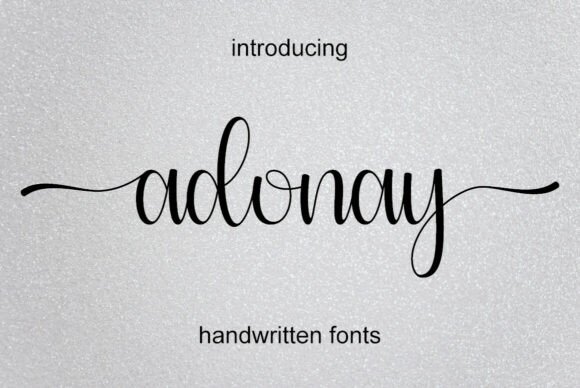
The Sweet Charm of Adonay Font: A Designer’s Delight
I’ll never forget the time I was working on a wedding invitation project, and my client asked for a font that was ” elegant, yet playful; romantic, yet modern.” I scoured the internet, tried out dozens of fonts, but nothing seemed to fit the bill. That was until I stumbled upon Adonay Font. This sweet and cursive handwritten font has been a game-changer for me, and I’m excited to share its charm with you! 😊
An Honest Review of Adonay Font
• ✨ Sweet and feminine touch: Adonay Font adds a touch of whimsy and romance to any design project.
• ✅ Versatile: It works beautifully on a variety of design ideas, from branding and logos to wedding materials and greeting cards.
• 💕 Elegant yet casual: Adonay Font strikes the perfect balance between sophistication and playfulness.
• 🎉 Easy to read: Despite its cursive nature, Adonay Font is surprisingly legible, even at smaller font sizes.
While Adonay Font is an excellent choice for many projects, there are a few things to keep in mind:
• 🤔 Limited use for body text: Due to its cursive nature, Adonay Font may not be the best choice for lengthy body text. It’s better suited for headings, titles, or short paragraphs.
• ⚠️ Kerning issues: As with any font, kerning can be a bit tricky. Be sure to adjust the kerning to ensure optimal spacing between letters.
The Story Behind Adonay Font
Adonay Font was designed with love and care by a talented type designer. The font’s name “Adonay” is inspired by the Hebrew word for “my lord,” reflecting the font’s elegant and sophisticated personality. The designer’s goal was to create a font that would add a touch of romance and whimsy to any design project, and I believe they’ve succeeded!
Author Hardiboy Design
Q: What type of projects is Adonay Font best suited for?
A: Adonay Font is perfect for branding, logos, wedding materials, greeting cards, fashion designs, and any project that requires a touch of elegance and playfulness.
Q: Is Adonay Font easy to read?
A: Yes, despite its cursive nature, Adonay Font is surprisingly legible, even at smaller font sizes.